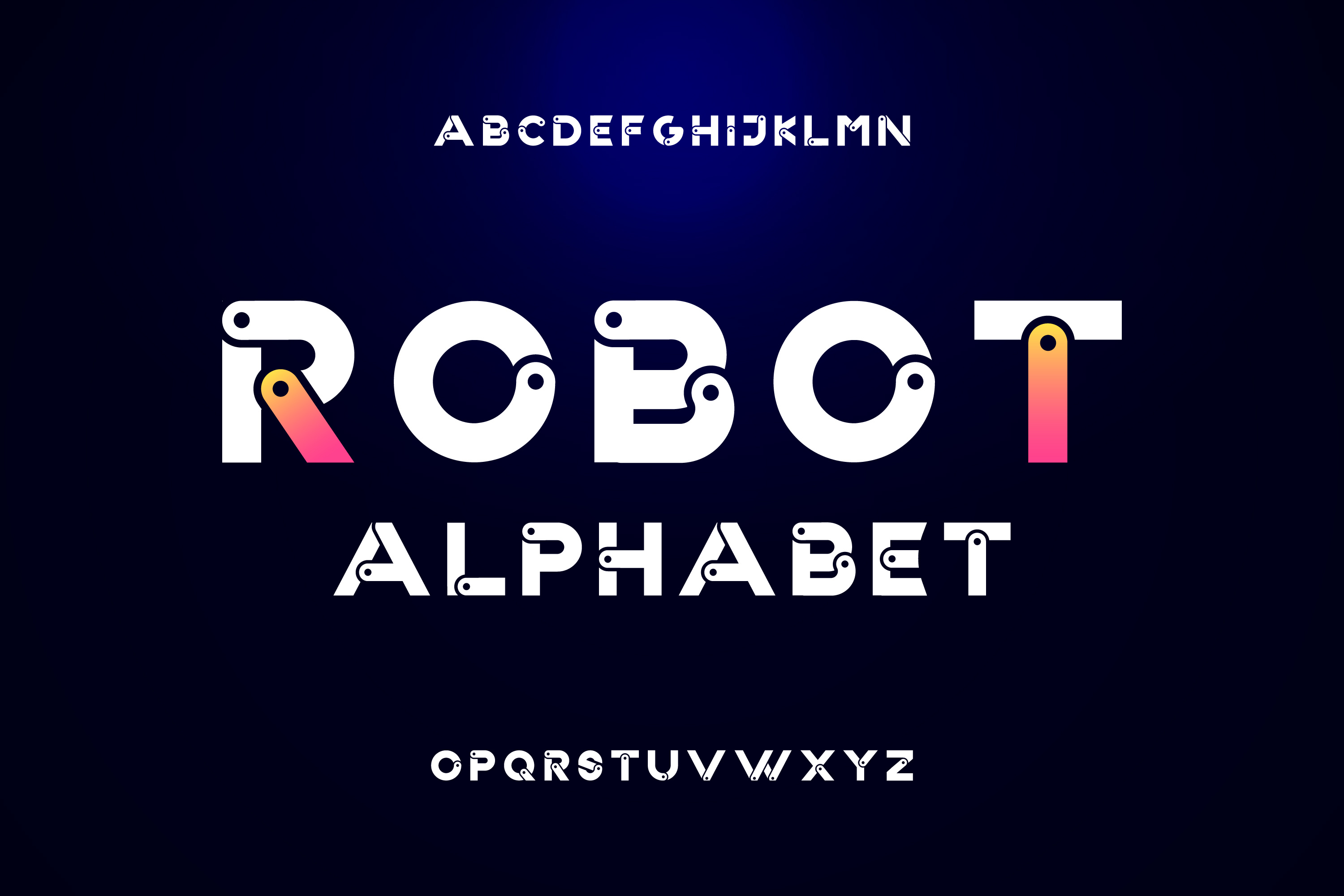
Robot typeface in technology style
I take inspiration from mechanical engine junction for the typeface. Then I tried to give a feeling like that in this typeface.